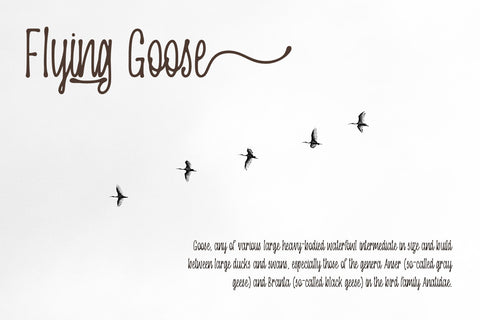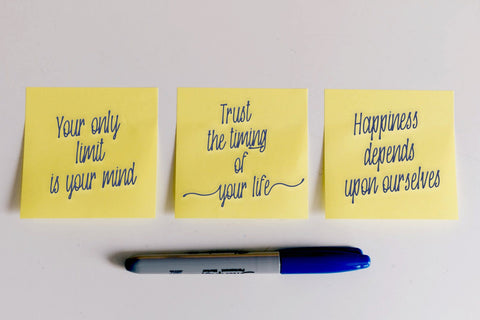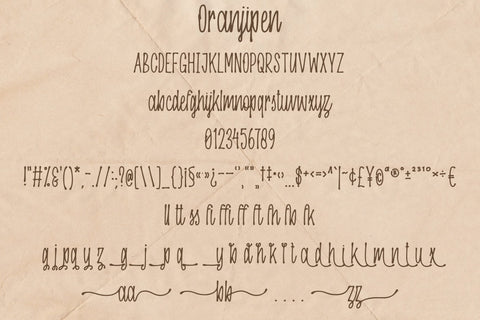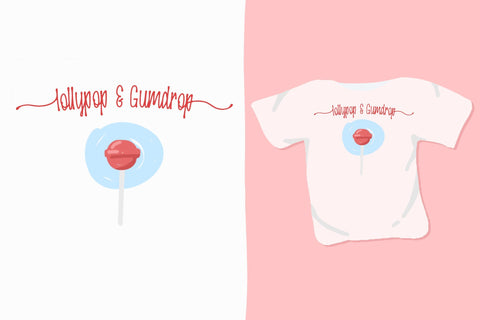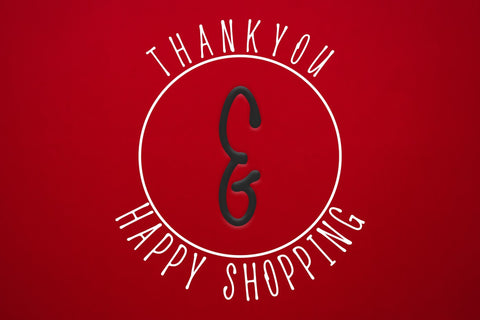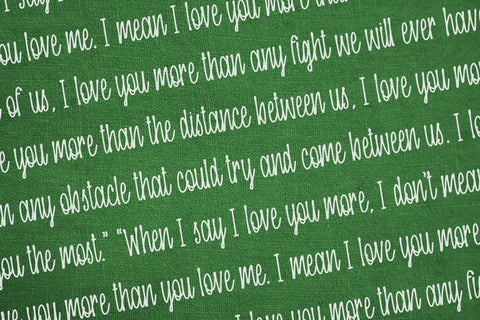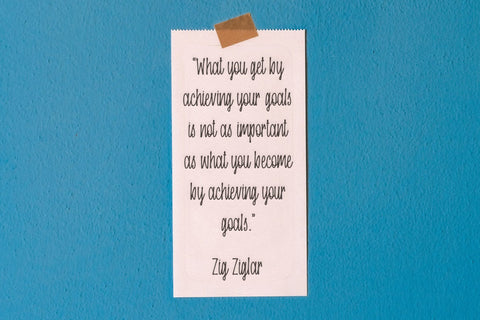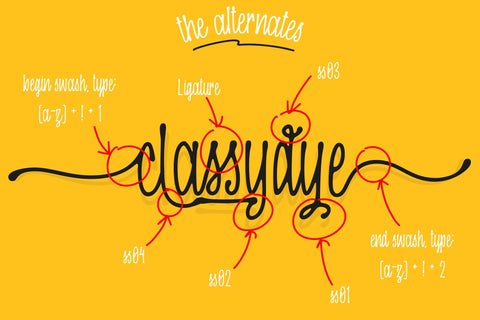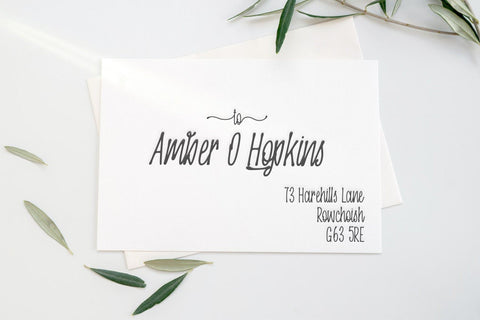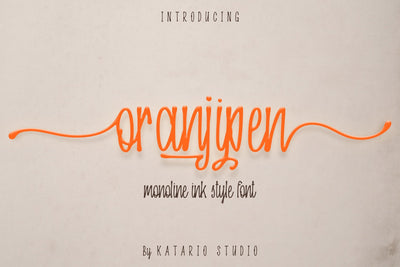
Oranjipen | Monoline Ink Style Script Font
Introducing, Oranjipen - a Monoline Ink Style Script Font. Oranjipen inspired by classic ink pen style combine with many alternate characters to use. This type of font gives your projects classic and authentic handwritten style. Oranjipen perfectly made to be applied especially for labels, letter, invitation, logotype, quotes, t-shirt, mug, any stationary items, your social media, crafting items, social media or any type of advertising purpose.
- Uppercase Characters
- Lowercase Characters
- Stylistic Set Characters (ss01, ss02, ss03, ss04)
- Swash
- Multilingual support